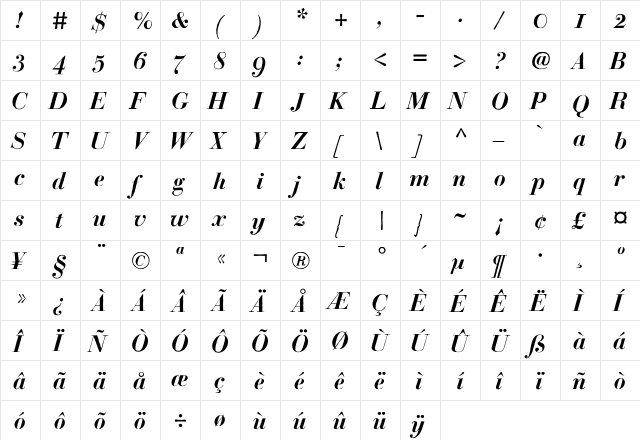
Bodoni Classic Handdrawn Bold Italic
Design Context for Bodoni Classic Handdrawn Typeface
Bodoni Classic Handdrawn has the warm character of retro typography — evoking diners, record sleeves, and the golden age of print advertising. The dynamic lean of this cut emphasises speed and emphasis in any layout. Its bold stroke weight gives it real presence on the page.
Font Pairing: Combine Bodoni Classic Handdrawn with a simple slab or neutral sans — period-accurate companions reinforce the vintage feel without competing for attention.
Pro Tip: Use Bodoni Classic Handdrawn for headlines and pull quotes rather than body copy — its personality is best appreciated in short, focused bursts.